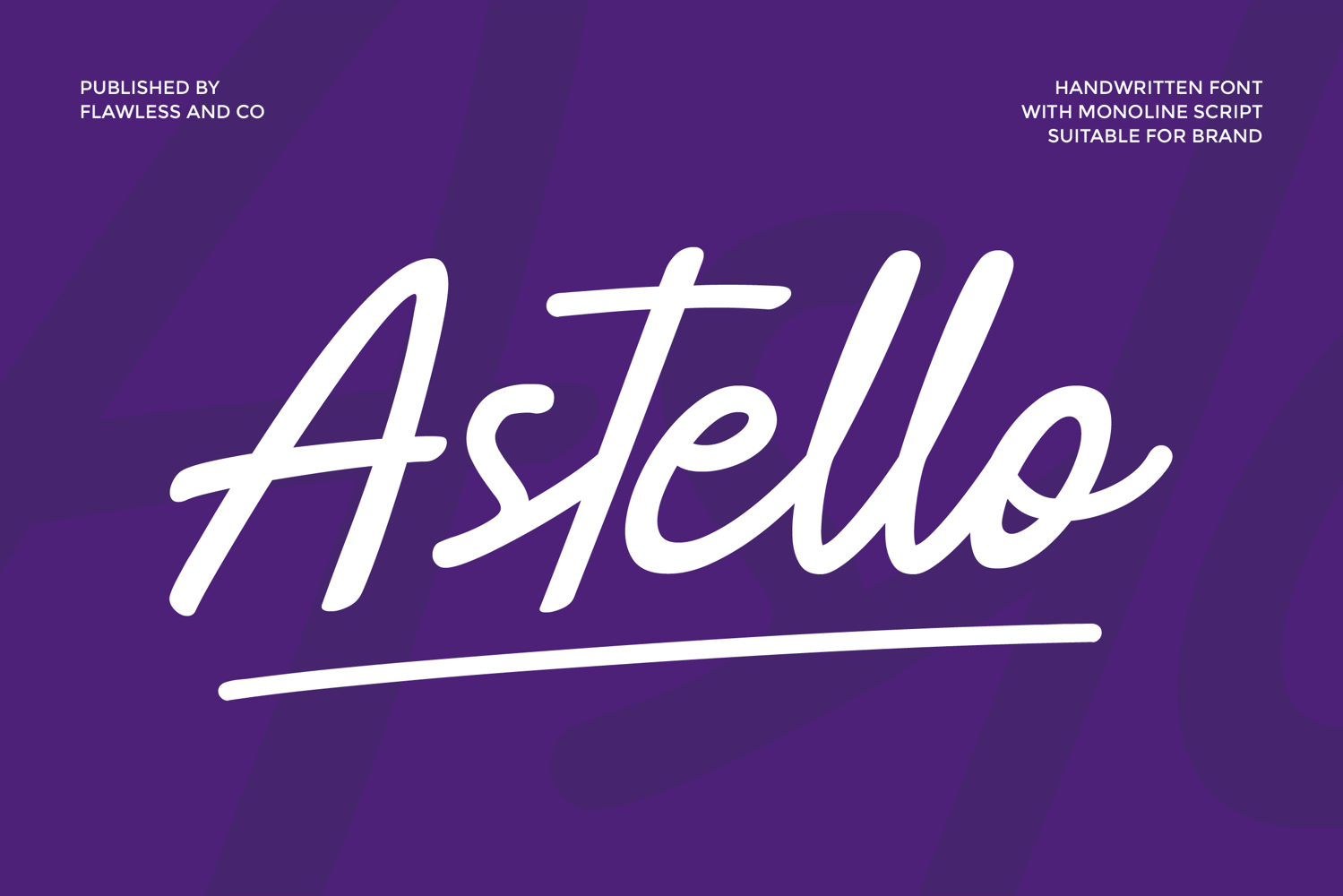
Astello
ASTELLO
Astello - Handwritten Script Font
Astello is a natural handwritten font with a clean monoline script style. Designed to feel smooth and modern, Astello brings a friendly yet professional touch to your designs. Its flowing strokes and balanced letterforms make it easy to read while keeping a handcrafted character.
• Alternates & Ligatures
A Must-Have Font for Brand and Logo Creators and Designers
Astello helps create logos and brand visuals that feel approachable, stylish, and memorable. Its handwritten look adds clean and versatile for professional use.
Why Choose Astello for Brand and Logo Projects?
• Natural handwritten style with smooth monoline strokes
• Clean and modern look for versatile branding
• Easy to read and visually balanced